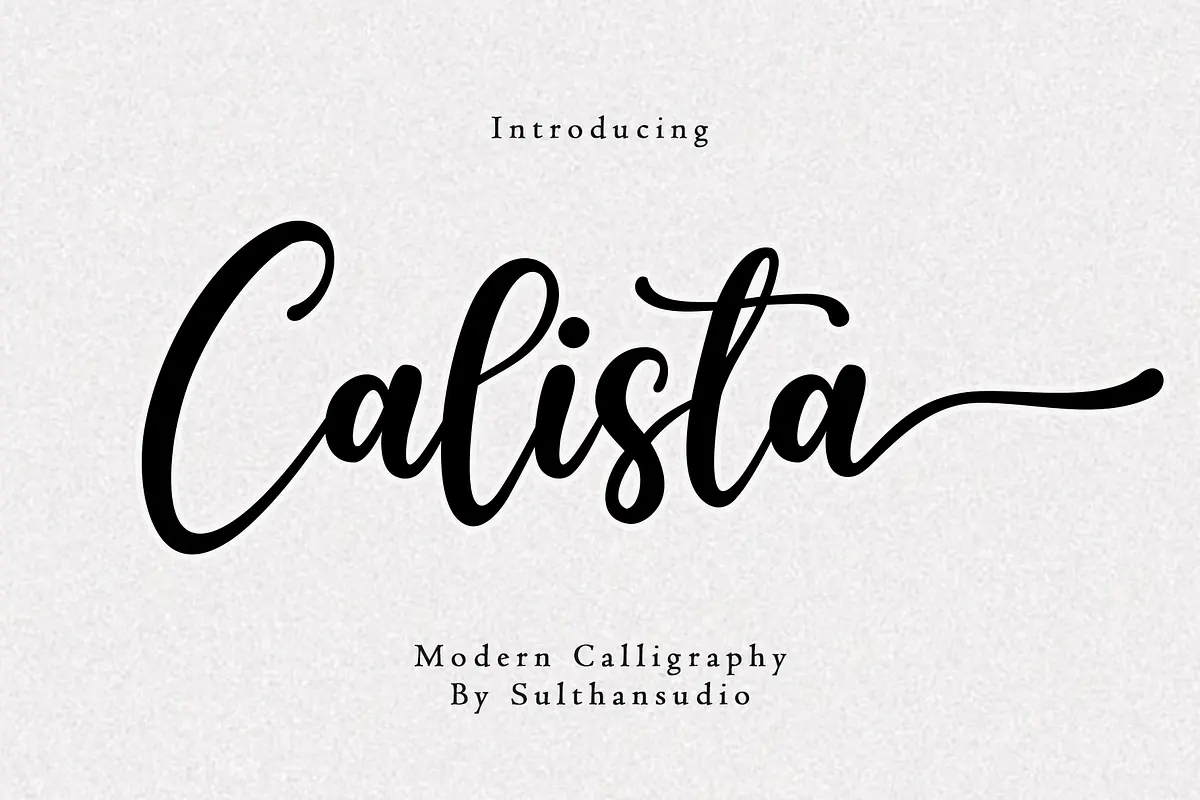
Calista Script Free Download
Calista Script Font Free Download
You must purchase this font for commercial use. However, you can download Calista Script Font Free Download for testing purposes. Calista is an elegant and refined script font that features beautiful flowing letterforms, perfect for creating sophisticated, handwritten-style designs. This font is ideal for wedding invitations, branding, logos, greeting cards, and other projects that require a delicate and personal touch.
With its graceful strokes and smooth curves, Calista Script adds a timeless and stylish feel to your typography. Whether you're designing for a luxury brand, crafting a romantic invitation, or working on a custom logo, this font will bring elegance and beauty to your designs.